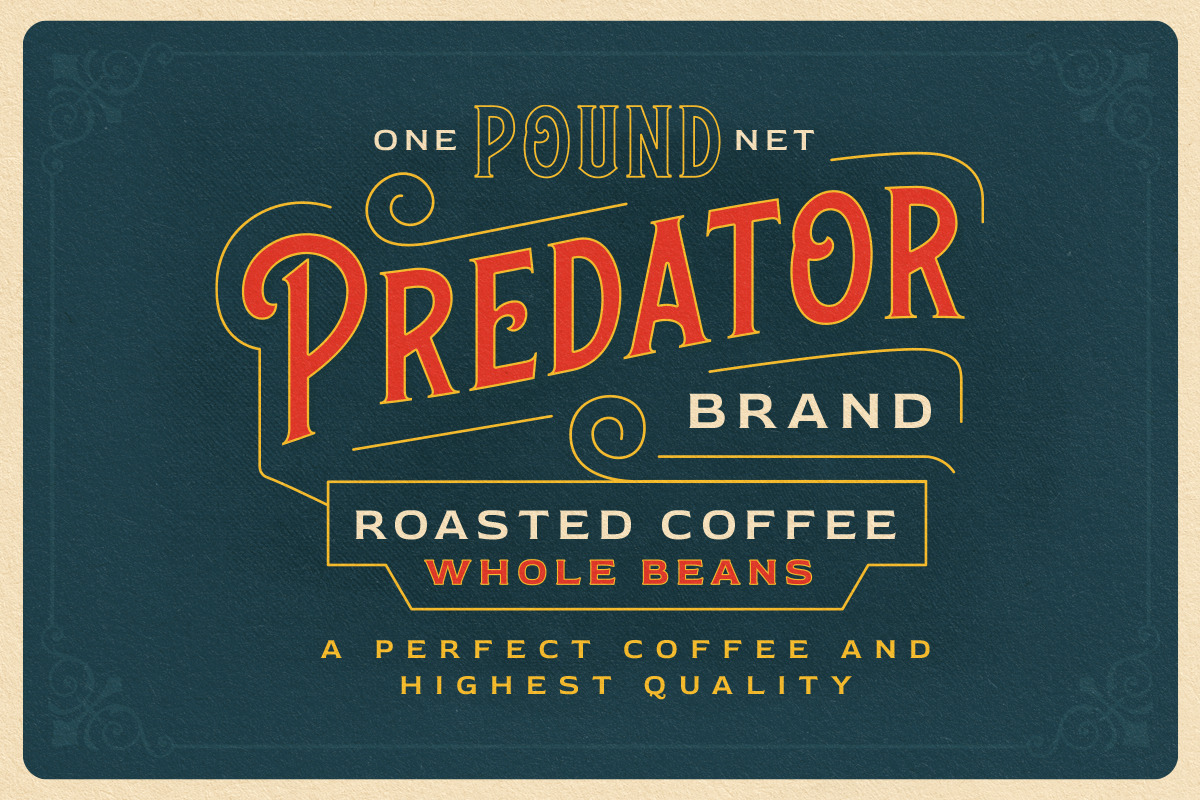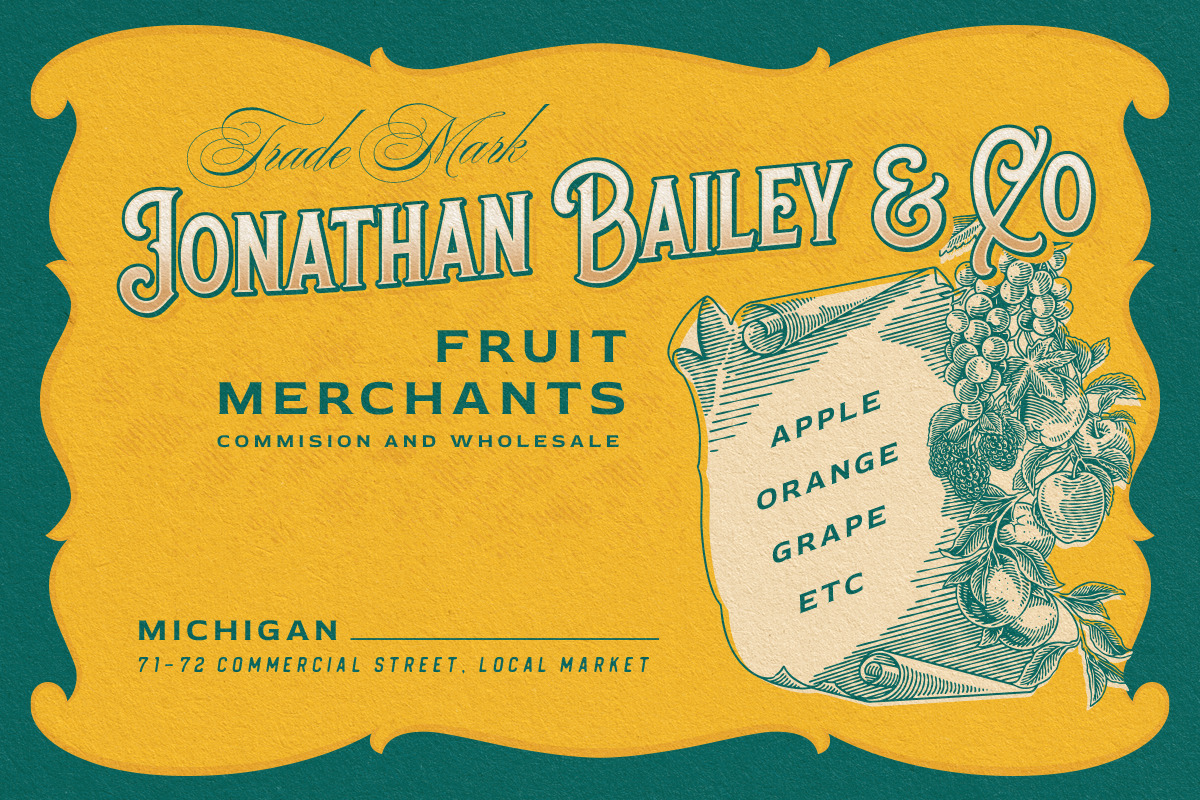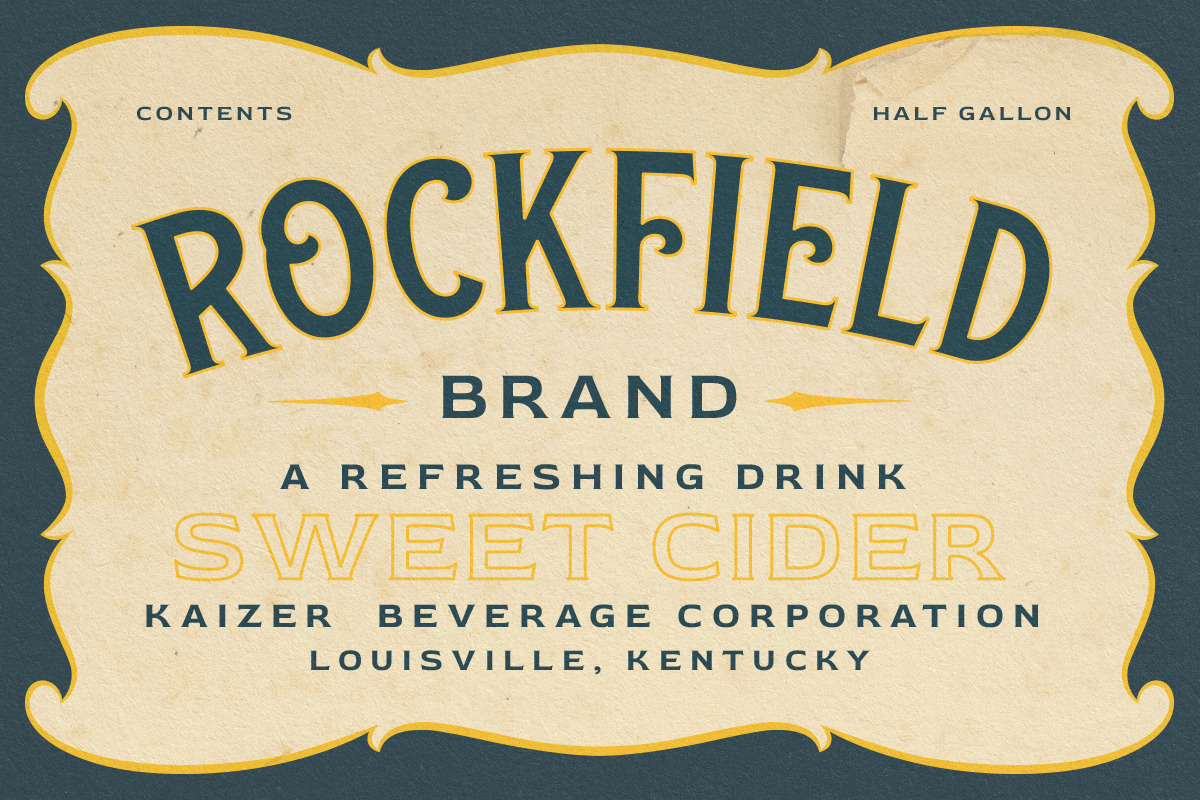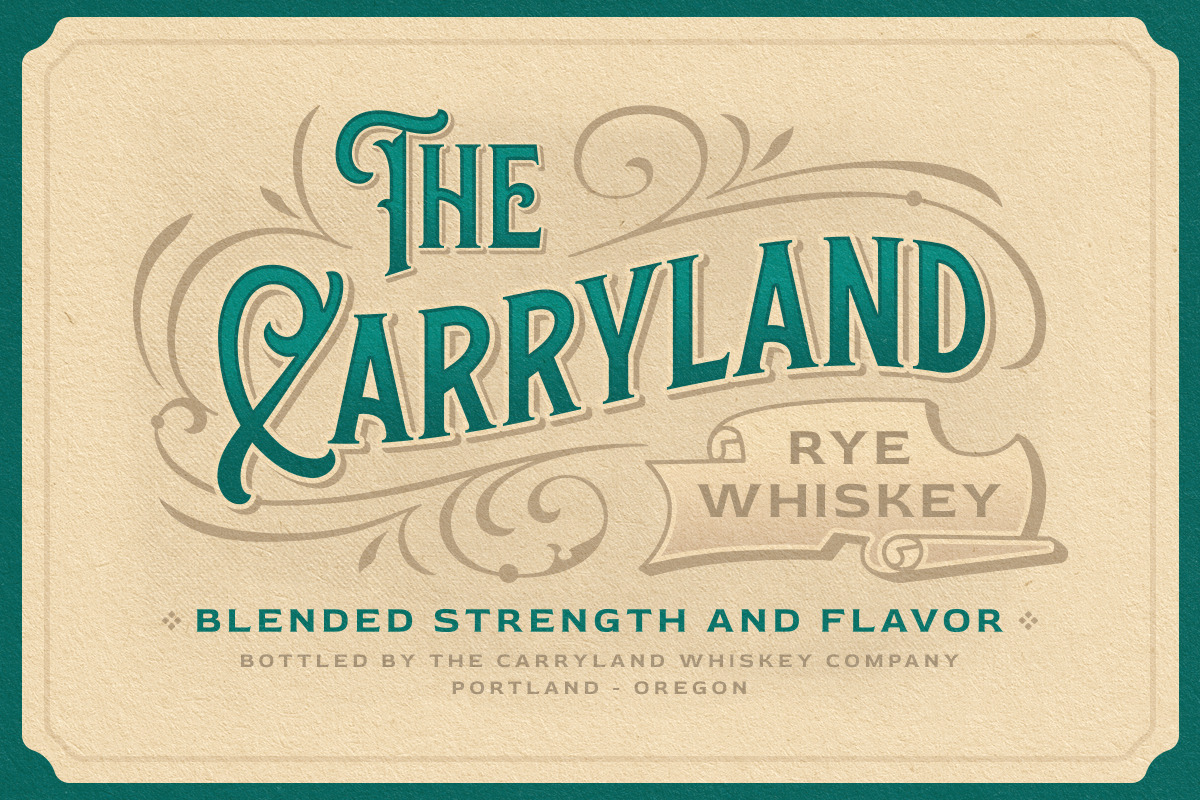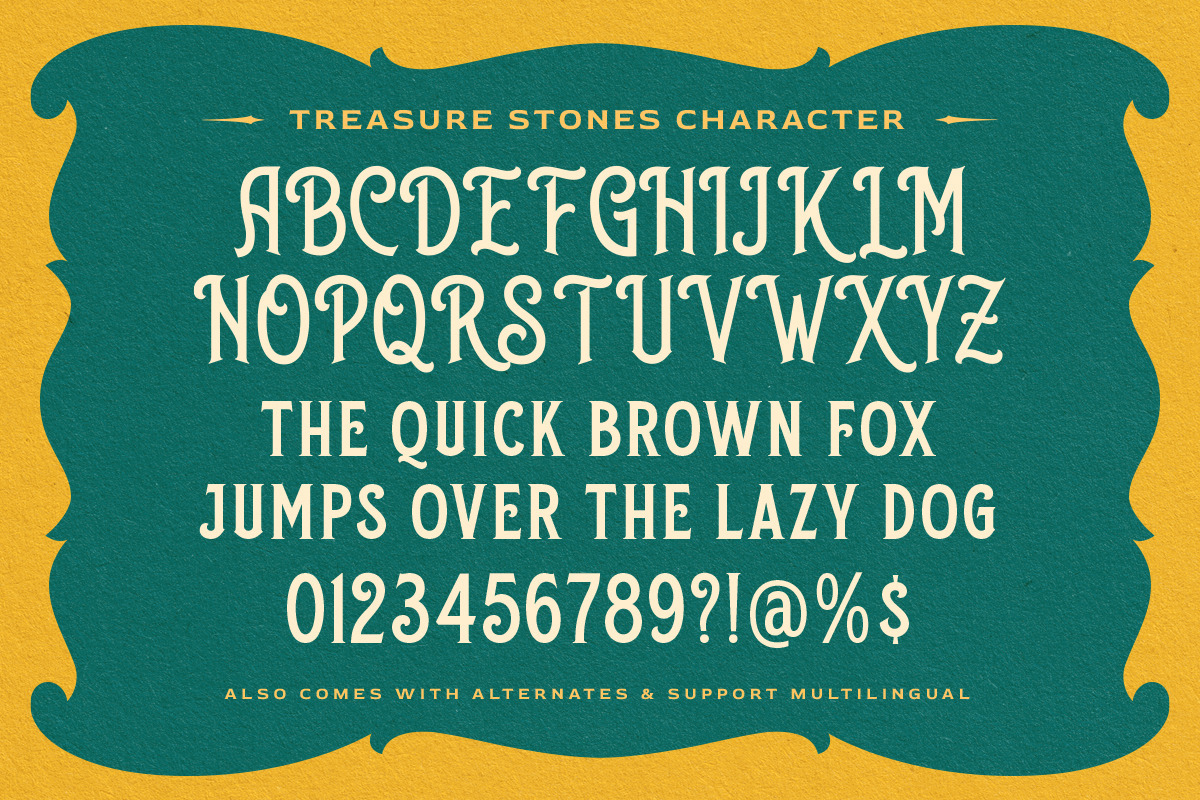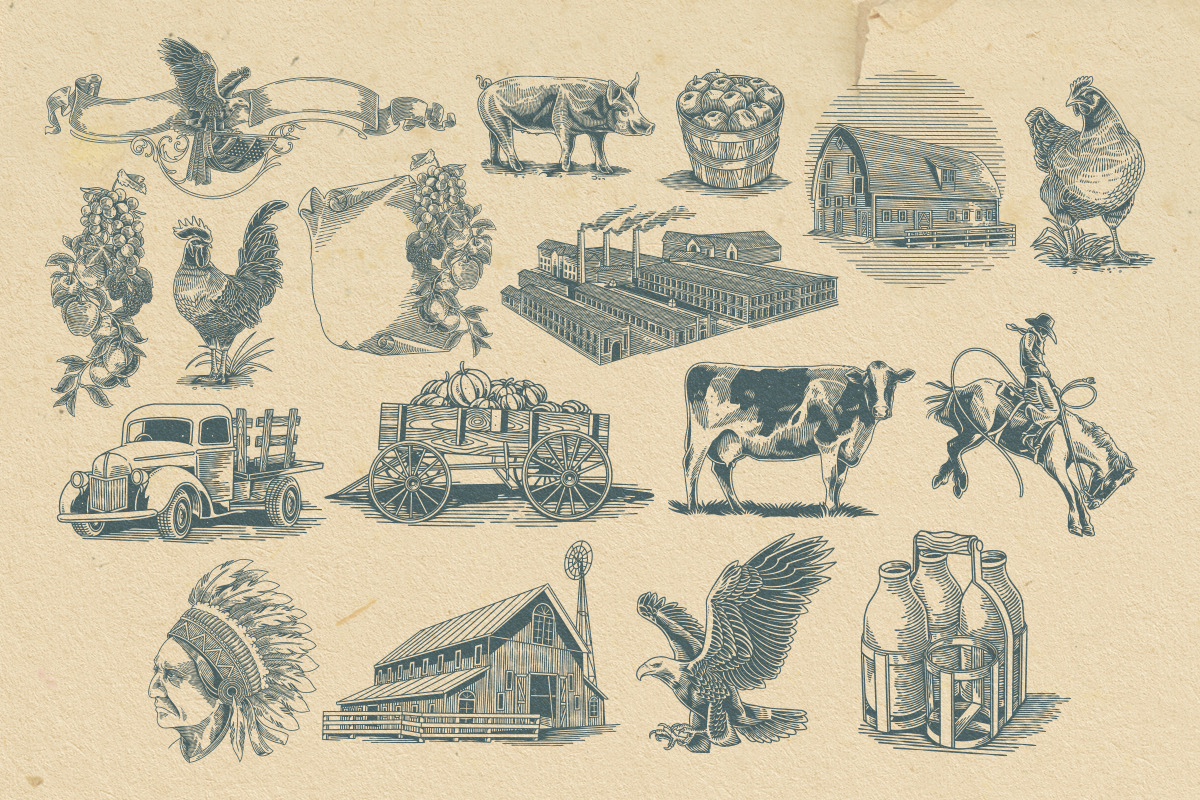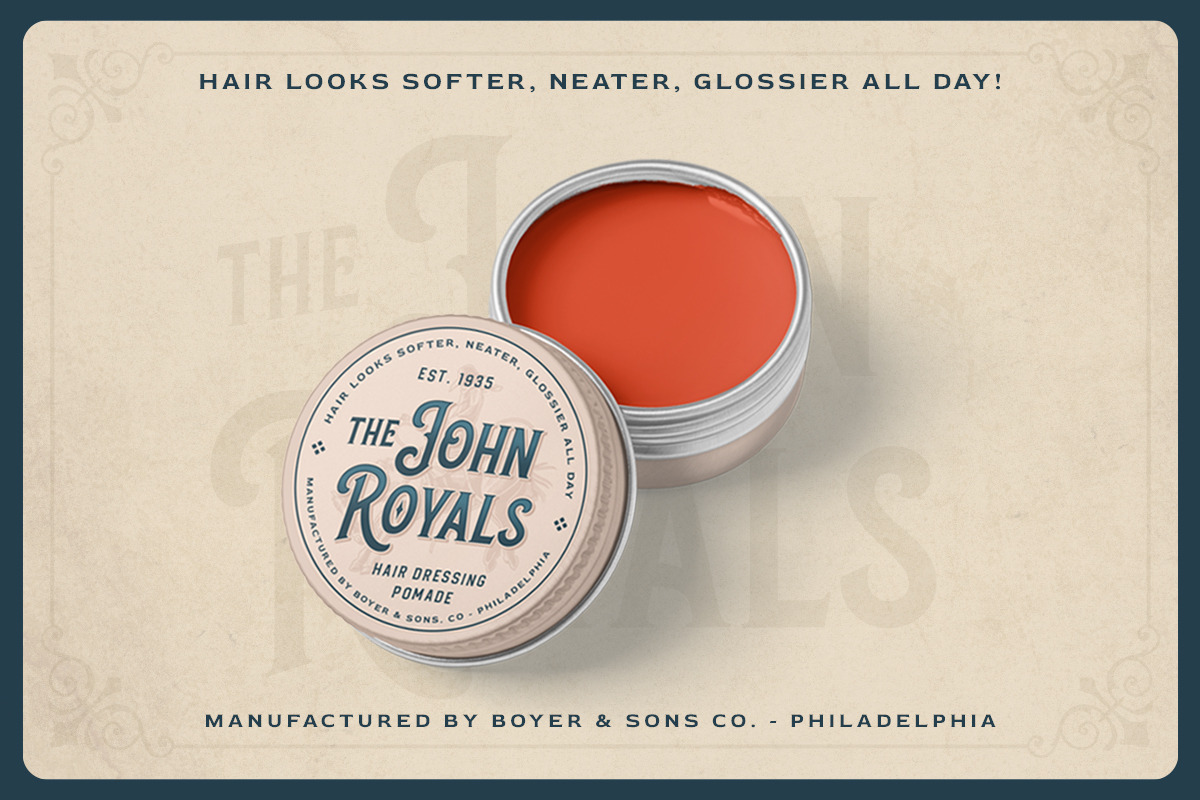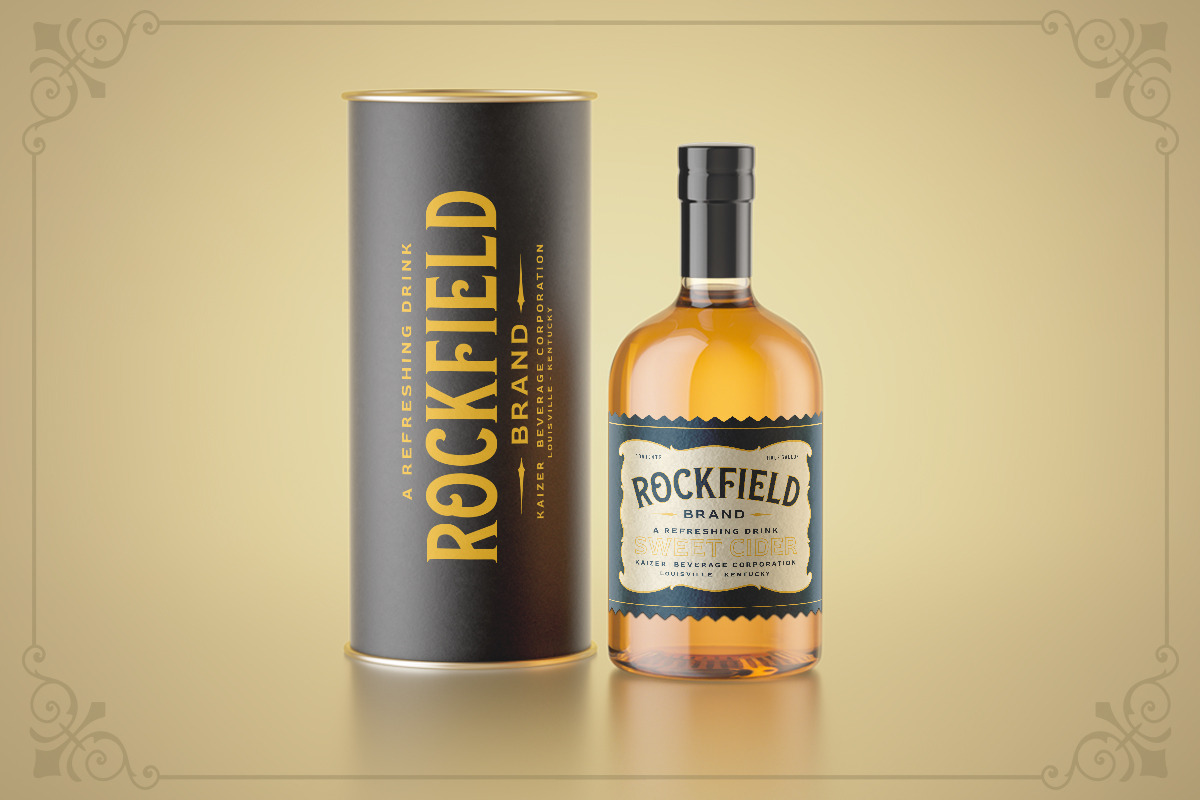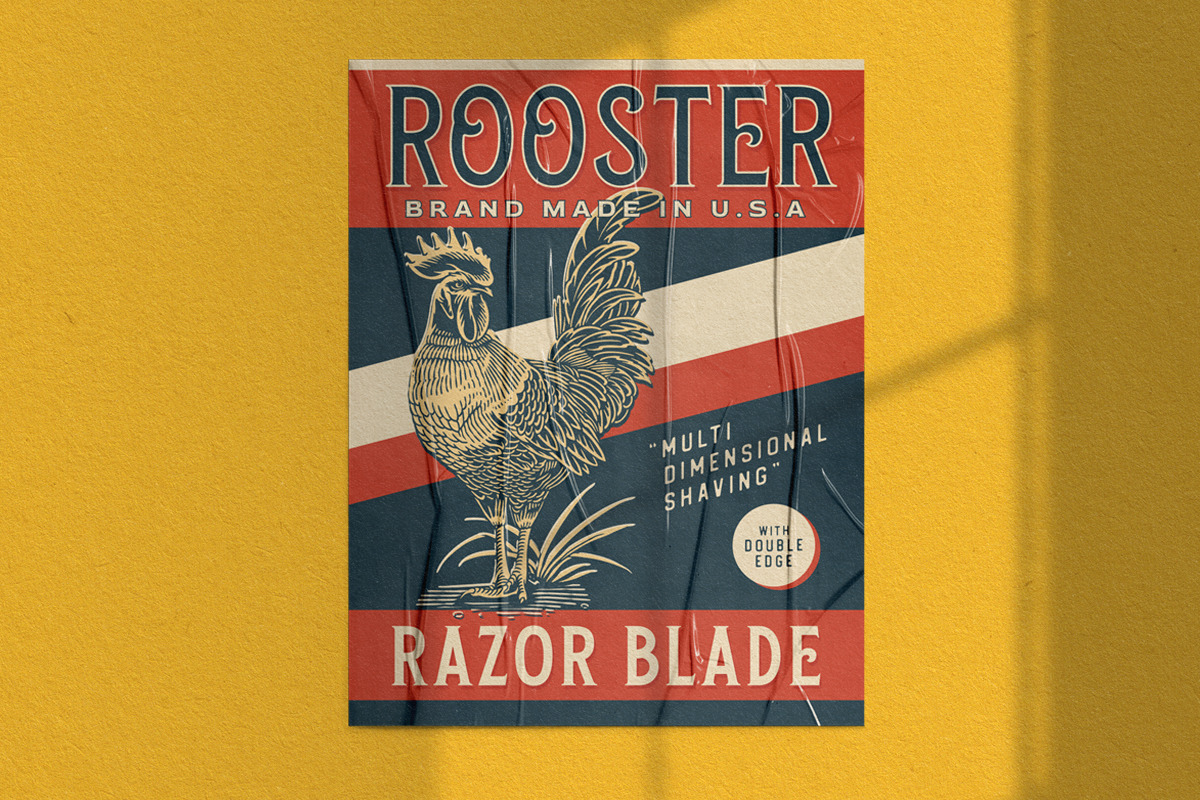
Treasure Stones & Extras
Treasure Stones is a display typeface which is inspired by vintage lettering sign and art. Also come with FREE ILLUSTRATION to make better design. While this font has a victorian touch, it still looks bold and solid. Very suitable for for headline, logotype, apparel, invitation, branding, packaging, advertising etc with old school / vintage theme.